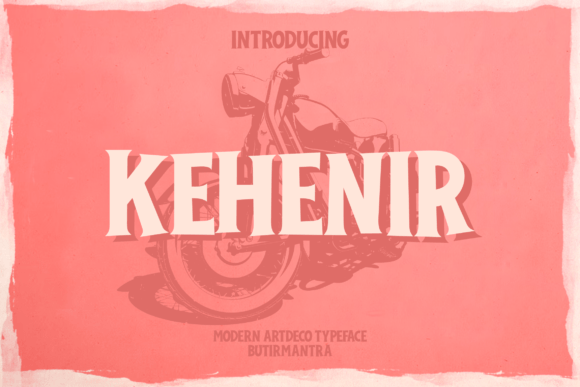
Introducing Kehenir Font, the ultimate choice for those seeking the best fonts for a clean and captivating user interface. Created by the talented garismantra, this font is a true gem in the world of typography. With its unique and vintage look, Kehenir Font stands out from the crowd, making any design instantly eye-catching.
What sets Kehenir Font apart is its strong all-caps style, giving it a distinctive and powerful appearance. Inspired by the classic old-style fonts, this font seamlessly blends the charm of the past with a modern and fresh touch. The result? A dynamic and elegant font that is sure to make your design projects shine.
Imagine the possibilities with Kehenir Font. Its versatility knows no bounds. Whether you're working on branding, titles, comics, posters, brochures, food-related designs, album covers, or logos, this font is your secret weapon. It effortlessly elevates your creations to new heights, leaving a lasting impact on your audience.
With Kehenir Font, your designs will exude sophistication and uniqueness. Its timeless appeal adds a touch of class to any project, making it perfect for those who strive for excellence. The meticulously crafted letterforms and attention to detail make this font a true work of art.
But Kehenir Font is not just about aesthetics; it's about creating an emotional connection with your audience. It evokes a sense of nostalgia while embracing the present, making your designs relatable and irresistible. It captures attention, sparks curiosity, and leaves a lasting impression on anyone who comes across it.
Downloading Kehenir Font is not merely acquiring a typeface; it's making a statement. It's about standing out from the crowd, expressing your creativity, and captivating your audience. So why settle for ordinary when you can have extraordinary?
Unleash your imagination and let Kehenir Font bring your designs to life. Experience the power of this captivating font and see how it transforms your projects into masterpieces. Don't miss out on the opportunity to elevate your designs and leave a lasting impression. Download Kehenir Font today and embark on a journey of limitless possibilities.